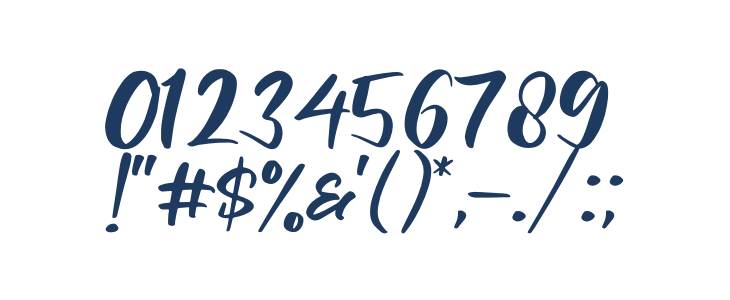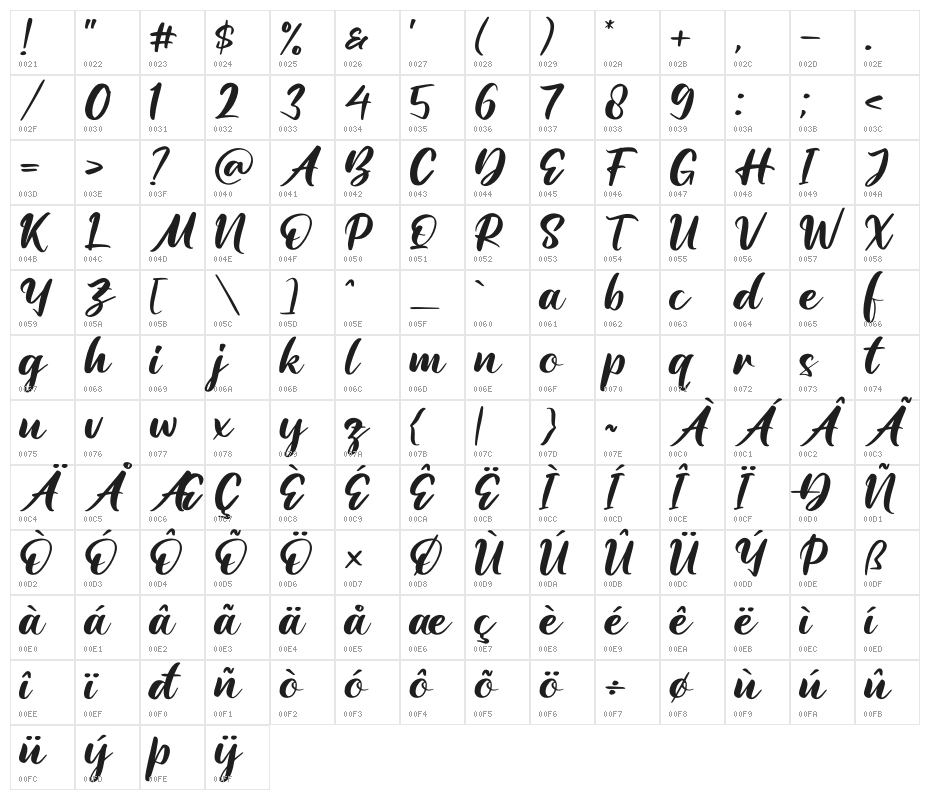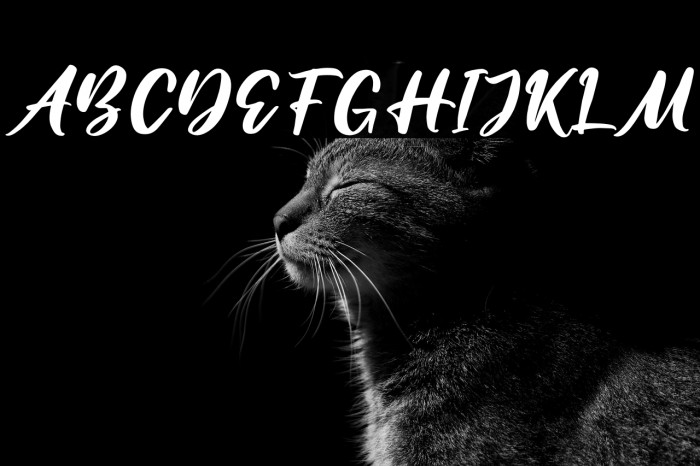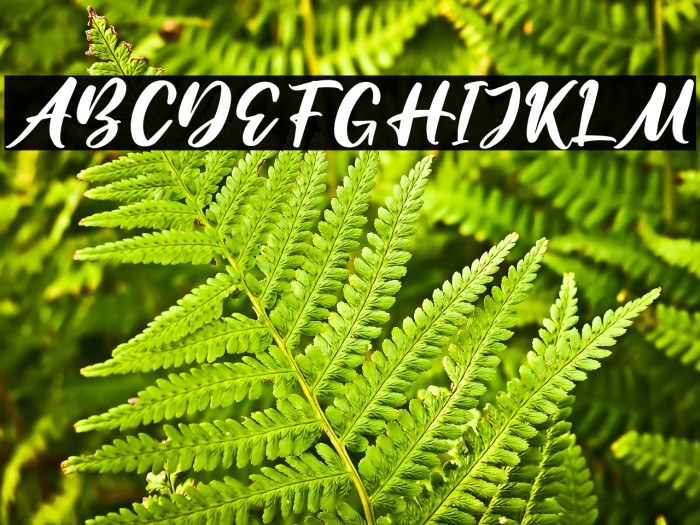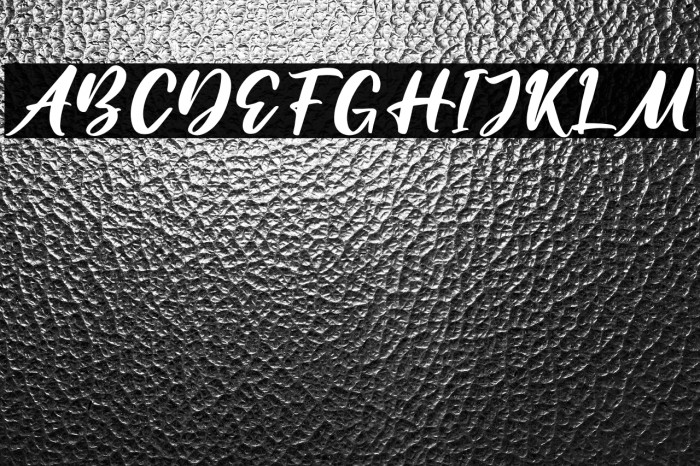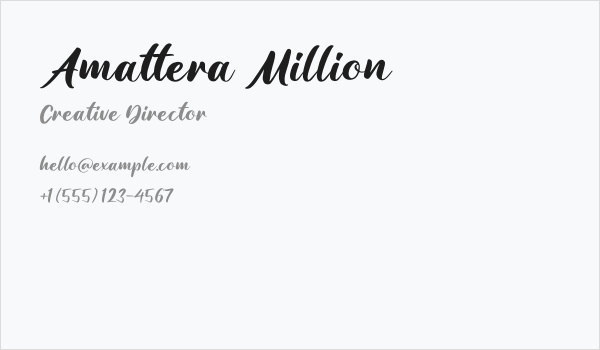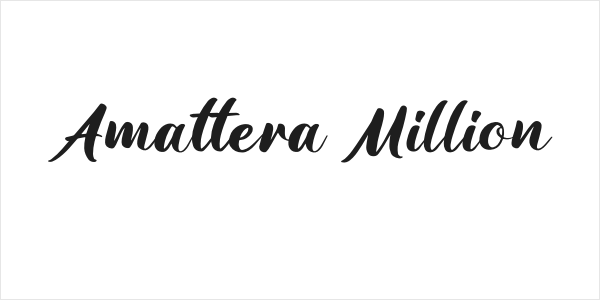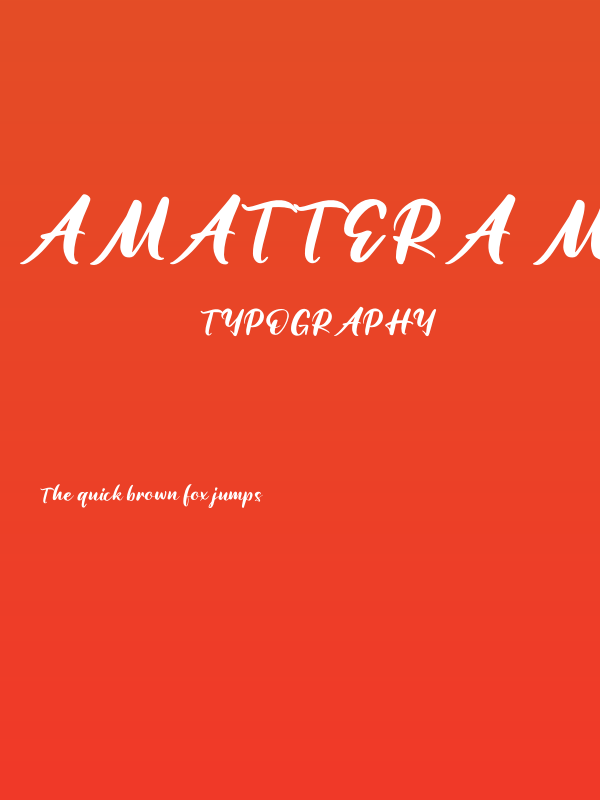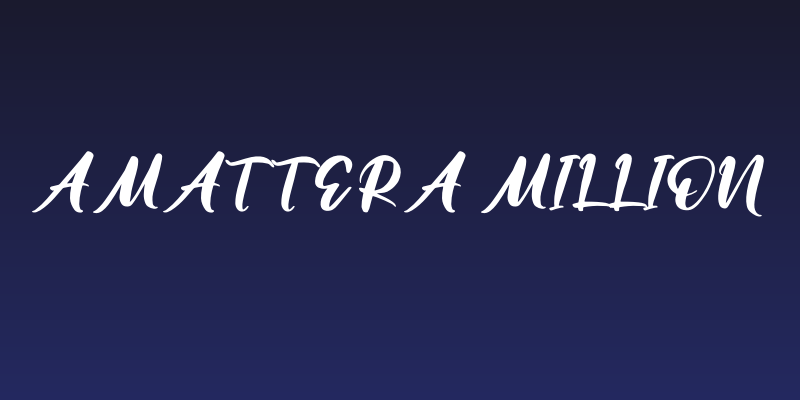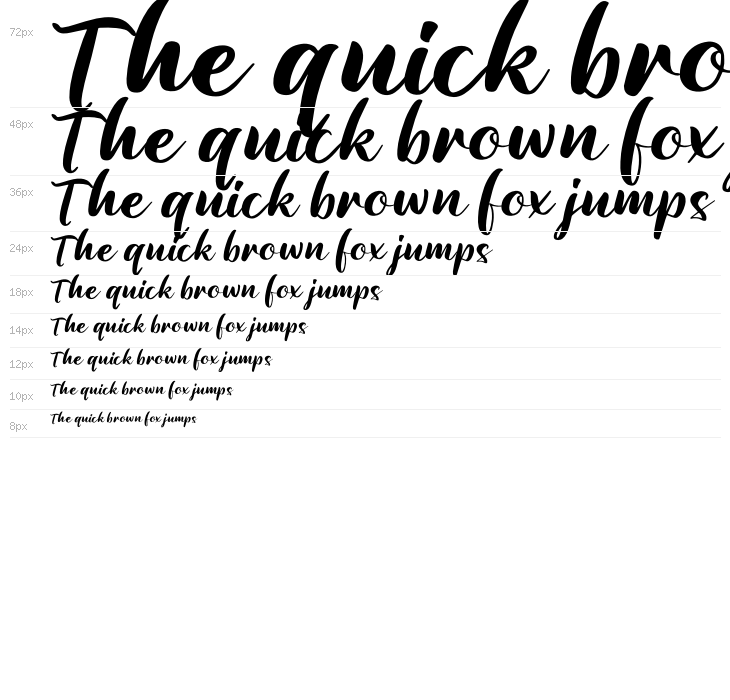
Amattera Million Font
Amattera Million Description
This font features a bold and expressive script style, characterized by its fluid and dynamic strokes that convey a sense of elegance and movement. The uppercase letters are particularly striking, with sweeping curves and a slightly slanted orientation that adds to the overall sense of motion. The lowercase letters maintain a consistent style, with rounded forms and smooth connections between characters, enhancing readability while preserving the decorative flair. The numerals are equally expressive, with a playful yet sophisticated appearance. Special characters are well-integrated, maintaining the font's cohesive aesthetic. This font is ideal for projects that require a touch of sophistication and creativity.